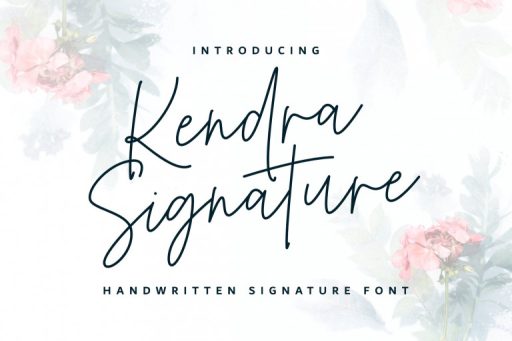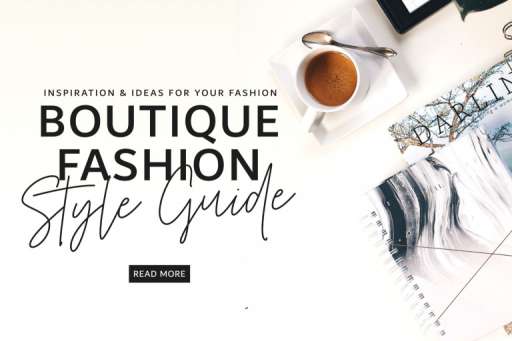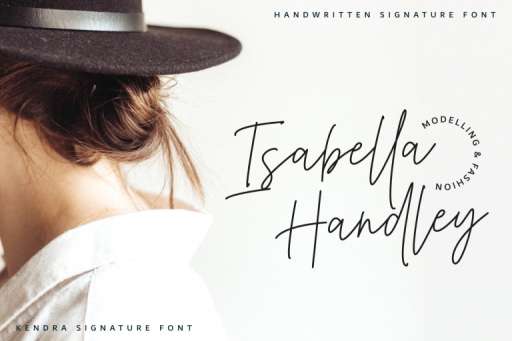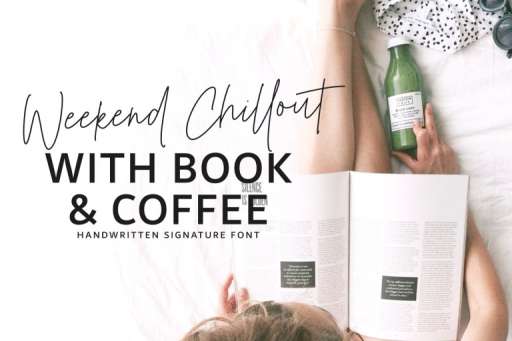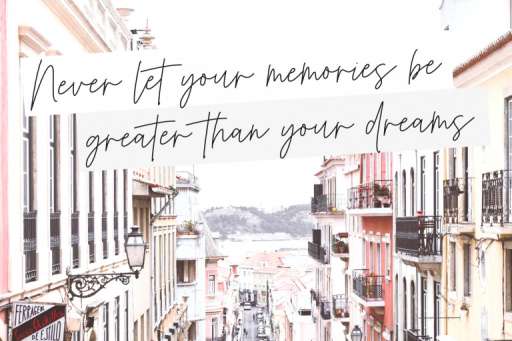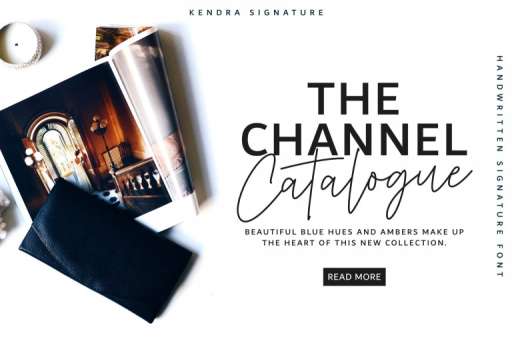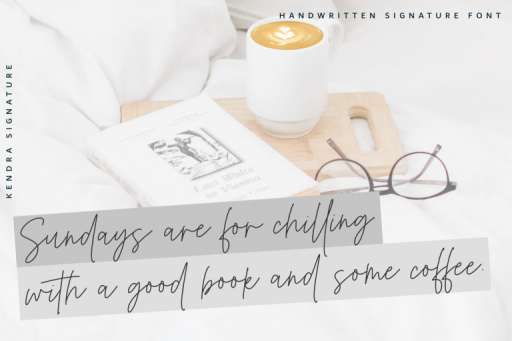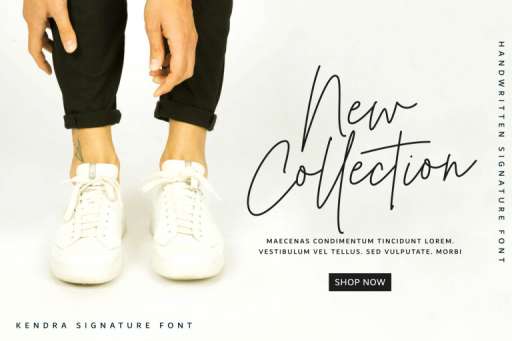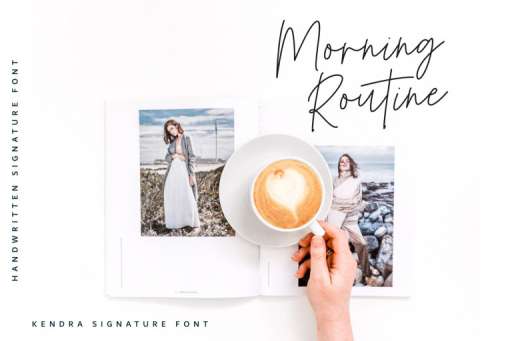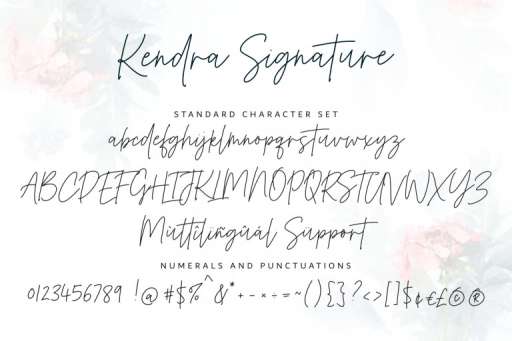
Kendra Signature Font
Kendra Signature – Business Font
Kendra Signature font is a modern handwritten signature script with monoline stylish that you can use to perfect your design. This Font perfect for branding project, websites project, blog headers, personal branding, logos project, social media, advertisements, movies and tv broadcast, and many other design projects.